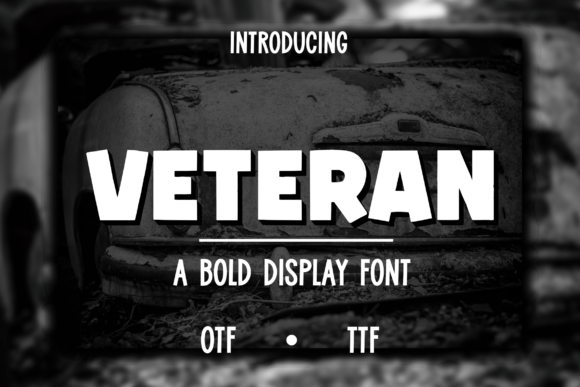
Veteran: A Bold Display Font for Maximum Impact
In the crowded digital landscape, silence is often mistaken for weakness. Your message needs a voice that cuts through the noise immediately, and typography is one of the most powerful tools to achieve this. Enter Veteran, a bold display font designed not just to be read, but to be felt. Whether you are crafting a headline for a high-stakes marketing campaign or designing a poster for a local event, Veteran offers the structural integrity and visual weight required to command attention. It is more than a typeface; it is a statement of confidence.
The Anatomy of Strength
What sets Veteran apart from other heavyweights in the typography world is its deliberate construction. Unlike fonts that rely on sheer thickness alone, which can sometimes lead to muddy legibility at smaller sizes, Veteran balances robust stroke widths with open counters and distinct terminals. This design philosophy ensures that even when scaled down for subheadings or social media graphics, the characters remain crisp and recognizable.
The font's character is defined by its geometric precision mixed with a touch of industrial grit. The vertical stress and strong horizontal lines create a sense of stability and permanence. When you apply Veteran to a project, you are signaling reliability. It does not waver. It does not whisper. This makes it an ideal choice for brands and creators who want to project authority without appearing aggressive. The balance between form and function allows Veteran to serve as both a decorative element and a functional communication tool.
Why Designers Are Choosing Veteran
Creative professionals are increasingly looking for typefaces that offer versatility within a specific aesthetic niche. Veteran fills the gap for those needing a modern, assertive look that avoids the overused tropes of standard sans-serifs. Its unique silhouette provides a fresh perspective on classic bold styles, making it a favorite among graphic designers working on branding packages, editorial layouts, and digital interfaces. The font's ability to maintain clarity across various weights and sizes means it can anchor a design system effectively.
Furthermore, the psychological impact of using a font like Veteran cannot be overstated. In the realm of user experience (UX), users scan content before they read it. A headline set in Veteran stops the scroll. It creates a visual hierarchy that guides the eye naturally to the most important information. For marketers and entrepreneurs, this split-second engagement is the difference between a conversion and a bounce.
Creative Applications and Project Ideas
The true potential of Veteran lies in how it is applied. While it shines in headlines, its utility extends far beyond simple text blocks. Here are several practical ways to integrate this bold typeface into your workflow:
- Event Posters and Flyers: For concerts, workshops, or community gatherings, Veteran acts as the primary visual hook. Pair it with high-contrast photography or abstract vector art to create a dynamic composition. The font's strength ensures readability even from a distance, which is crucial for physical print materials.
- Brand Logos and Wordmarks: Startups and small businesses often struggle to find a logo font that feels established yet modern. Veteran provides a solid foundation for wordmarks, particularly in industries like finance, construction, technology, and fitness. Its inherent stability conveys trustworthiness instantly.
- Social Media Graphics: In the fast-paced environment of Instagram Stories or LinkedIn carousels, text must compete with video and motion. Using Veteran for key quotes, statistics, or call-to-action buttons ensures your message stands out against busy backgrounds. Try using it in all-caps for maximum impact, ensuring adequate letter spacing to prevent crowding.
- Packaging Design: Product packaging relies heavily on shelf presence. Whether it's a craft beer label, a skincare bottle, or a tech gadget box, Veteran can make the product name pop. Its boldness suggests quality and substance, influencing consumer perception before they even pick up the item.
- Editorial Headlines: Bloggers and publishers can use Veteran to break up long-form content. A section header in Veteran signals a shift in topic and gives the reader a moment to pause. It adds a layer of sophistication to digital articles, elevating them above standard blog aesthetics.
Adapting Veteran for Different Audiences
While Veteran is undeniably bold, it is not a one-size-fits-all solution. The way you deploy it should shift based on your target audience and the context of the project. Understanding these nuances will help you maximize the font's effectiveness.
For the Corporate Professional
If you are a freelancer or business owner targeting corporate clients, use Veteran sparingly to denote importance. Avoid using it for body text, as the weight can become fatiguing to read in large paragraphs. Instead, reserve it for main titles, chapter headers, or key data points in presentations. Pair it with a clean, neutral sans-serif for body copy to create a balanced, professional hierarchy. This approach maintains readability while injecting personality into otherwise sterile documents.
For the Creative Entrepreneur
Creators in the arts, fashion, or lifestyle sectors have more freedom to experiment. You can push the boundaries of Veteran by manipulating tracking (letter-spacing) and leading (line-height). Tightening the spacing can create a blocky, monumental feel, perfect for streetwear branding or album covers. Conversely, increasing the spacing adds air and elegance, softening the font's edge slightly while retaining its strength. Don't be afraid to overlay images or use gradients within the letters themselves to create depth.
For the Educator and Publisher
In educational contexts, clarity is paramount. Veteran works well for workbook titles, course module headers, or promotional materials for workshops. It captures the attention of students and parents alike. However, ensure that the contrast between the font color and background meets accessibility standards. Because Veteran is so dense, low-contrast pairings can reduce legibility, especially for readers with visual impairments.
Maintaining Clarity and Consistency
Using a powerful tool like Veteran requires discipline. The temptation to overuse bold elements can lead to a chaotic design where nothing truly stands out because everything is shouting. To keep your results clear and effective, adhere to a few core principles.
First, establish a strict hierarchy. If your H1 is in Veteran, consider using a lighter weight or a different typeface for H2 and H3 tags. This contrast creates a rhythm that guides the reader through the content effortlessly. Second, pay attention to whitespace. Bold fonts demand room to breathe. Crowding Veteran with too much surrounding text or graphics can diminish its impact and make the layout feel cluttered.
Consistency is also key across platforms. If you use Veteran for your website headers, ensure that your email newsletters and social media templates reflect the same stylistic choices. This builds brand recognition. When an audience sees that distinctive bold shape, they should immediately associate it with your voice and values.
Practical Tips for Implementation
- Test Legibility: Always preview your designs on multiple devices. What looks sharp on a desktop monitor might appear pixelated on a mobile screen. Ensure the font renders clearly at various resolutions.
- Color Matters: While black on white is classic, Veteran can handle vibrant colors exceptionally well. Experiment with deep blues, rich reds, or metallic tones to enhance the font's texture. Just remember that darker backgrounds require lighter text weights or increased size to maintain visibility.
- Pair Wisely: Veteran pairs best with simple, unadorned typefaces. Let the bold font do the heavy lifting while the secondary font handles the details. Avoid pairing it with another display font, as this creates visual competition.
Veteran is more than just a collection of glyphs; it is a strategic asset for anyone looking to elevate their visual communication. By understanding its strengths and applying it with intention, you can create projects that resonate deeply with your audience. Whether you are launching a new product, writing a compelling article, or designing a memorable poster, let Veteran give your work the bold foundation it deserves. Embrace the impact, respect the structure, and watch your creative vision take shape with undeniable force.